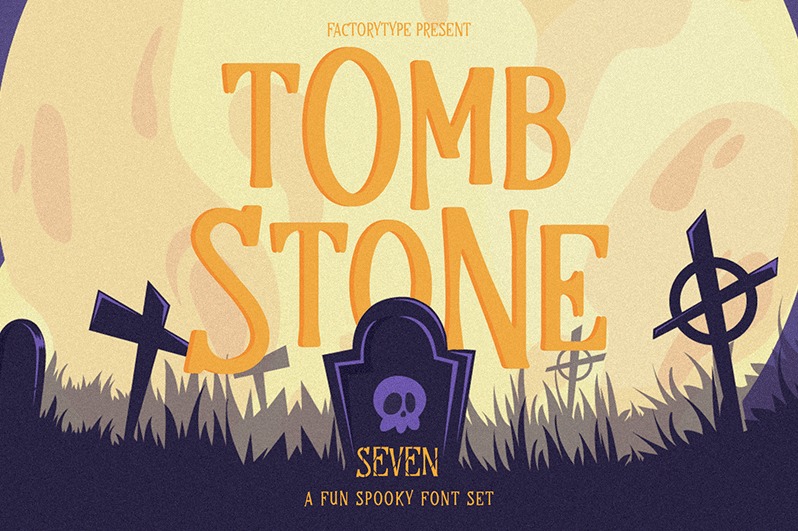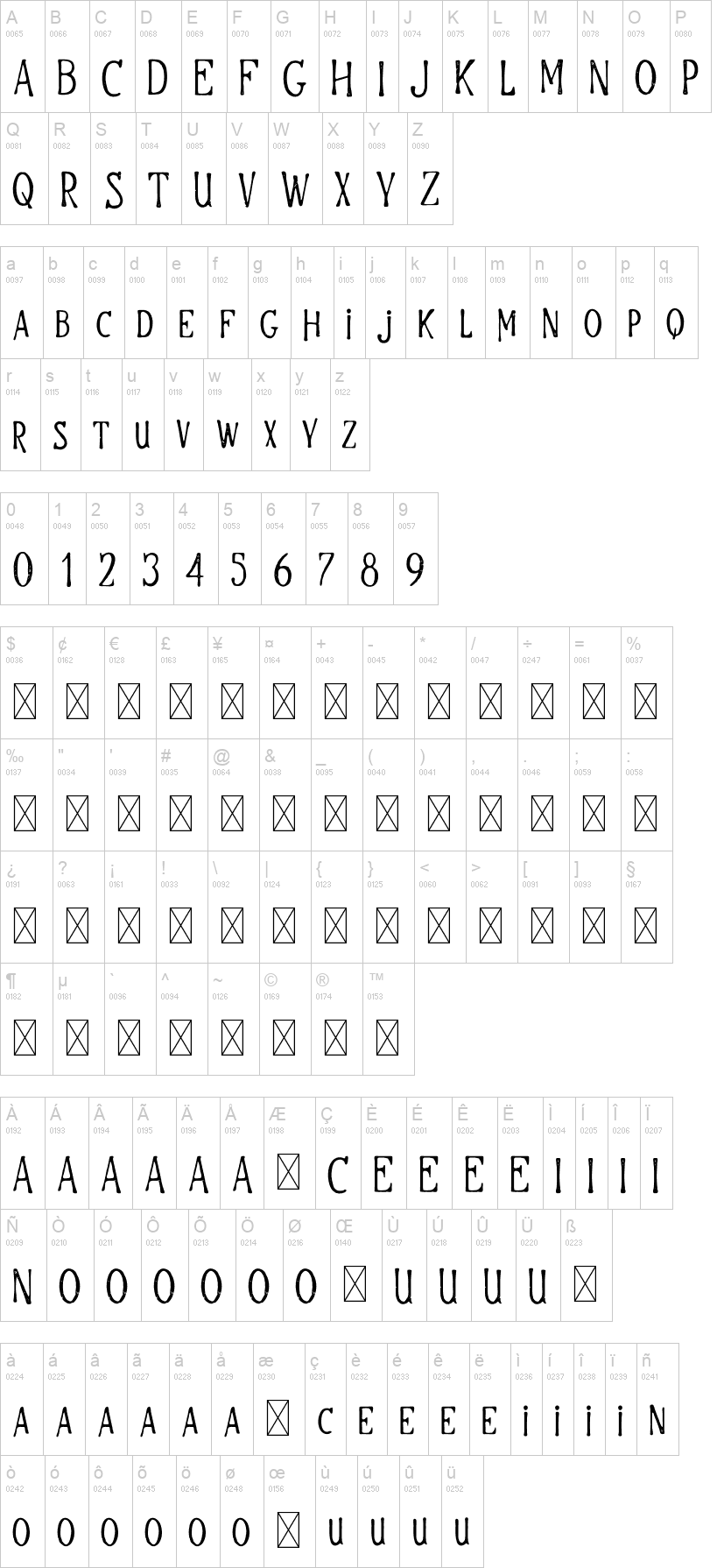
Note of the authorGet ready for Halloween with our Tombstone fonts! Celebrate in style with our FREE Horror font download. This years Halloween is quickly approaching, and theres no better way to add some spooky flair to your project than with our Tombstone fonts. Dont miss out on the opportunity to let your creativity soar. Download our FREE Horror font today!